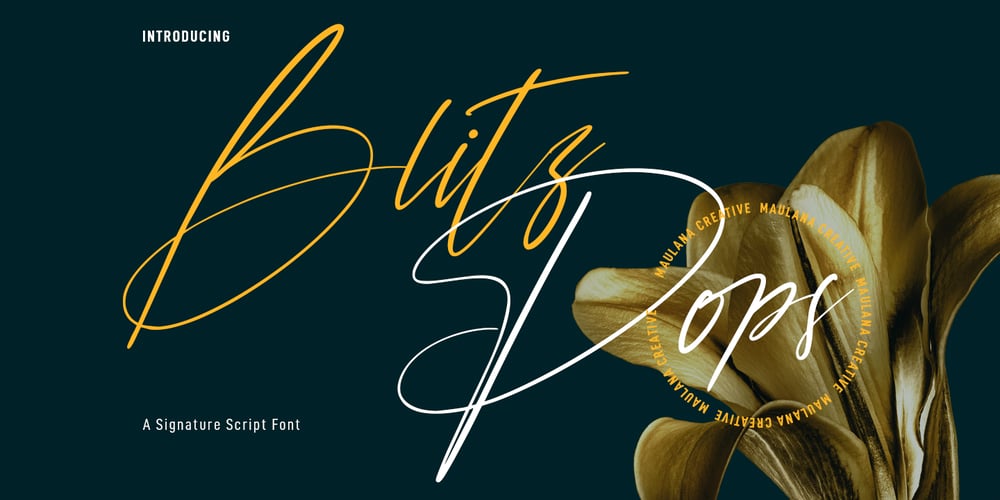
Blitz Pops Font Family was designed by Gilang Maulana and published by Maulana Creative. Blitz Pops contains 1 styles and family package options. Blitz Pops is an expressive signature script font. With high contrast stroke, fun character with a bit of ligatures and alternates. To give you an extra creative work. Blitz Pops font support multilingual more than 100+ language. This font is good for logo design, Social media, Movie Titles, Books Titles, a short text even a long text letter and good for your secondary text font with sans or serif. Make a stunning work with Blitz Pops font. Cheers, MaulanaCreative